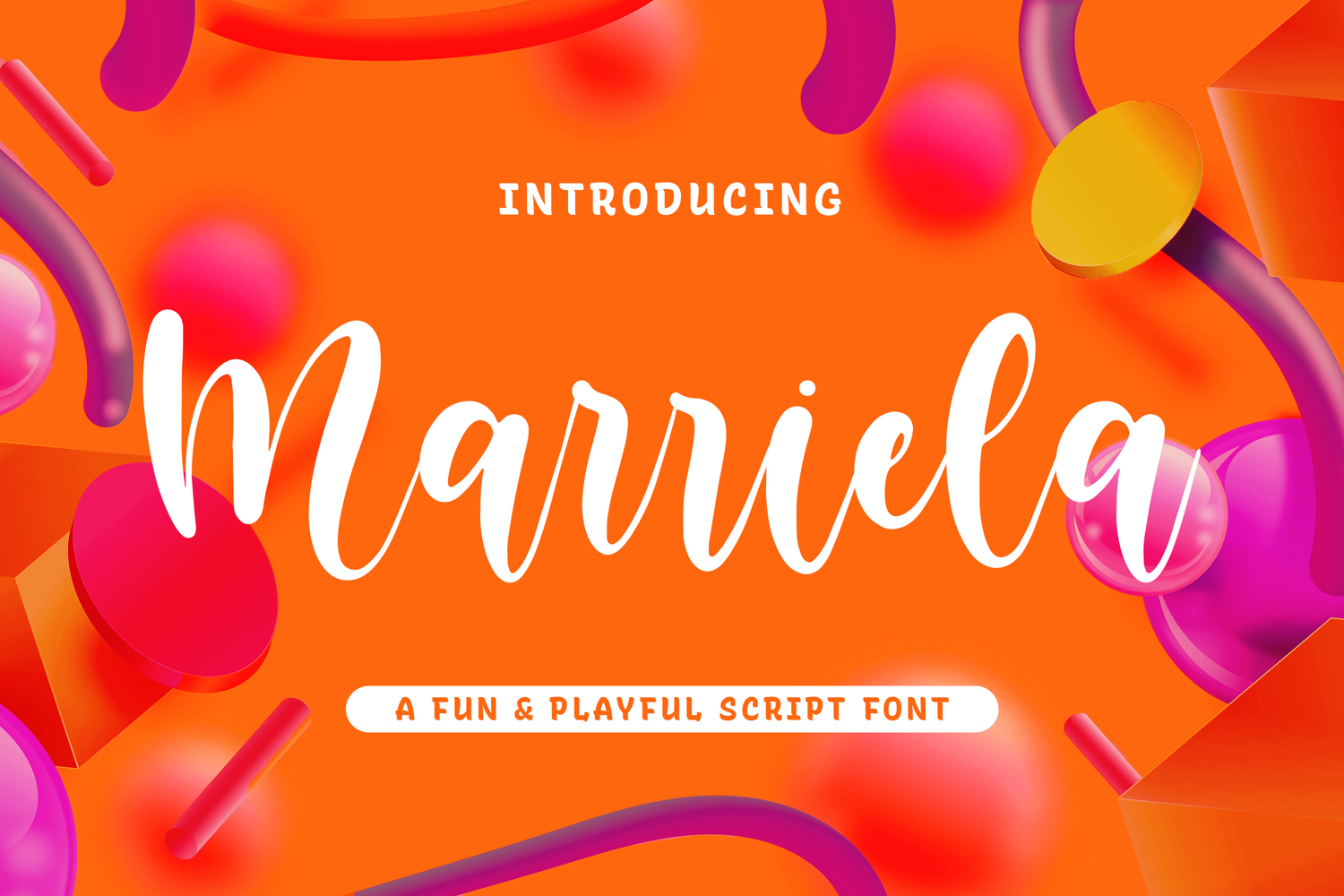
Marriela - Fun Script font
Marriela – Fun Script font with a natural handwritten feel. This handmade font will make your design has a beautiful natural touch for each details. It is perfect for any design project as Invitation,logo, book cover, craft or any design purposes.